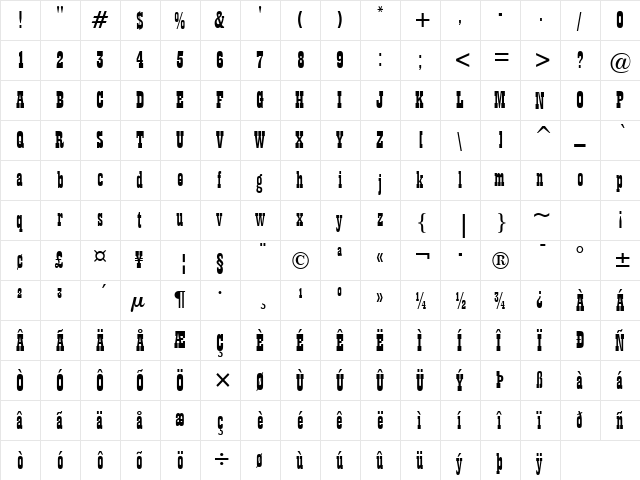
Billboard 11 Normal
Design Context for Billboard 11 Typeface
Billboard 11 is a composed and adaptable typeface that performs quietly and consistently across a wide range of design contexts.